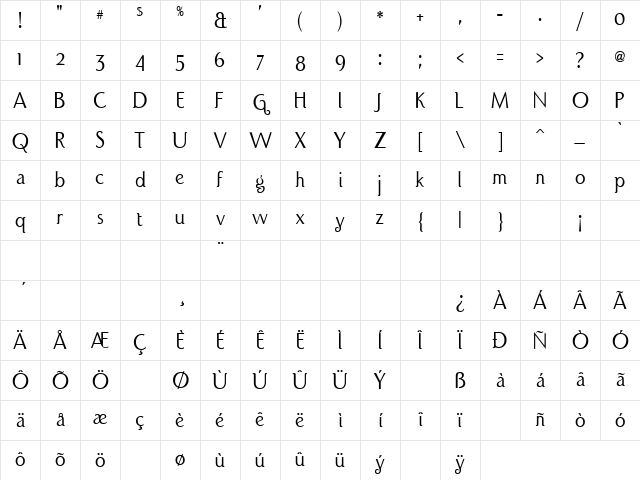
Port Credit Regular
Foundry: Larabie Fonts
Design Context for Port Credit
Port Credit is a composed and adaptable typeface that performs quietly and consistently across a wide range of design contexts.
Who designed the Port Credit Regular font?